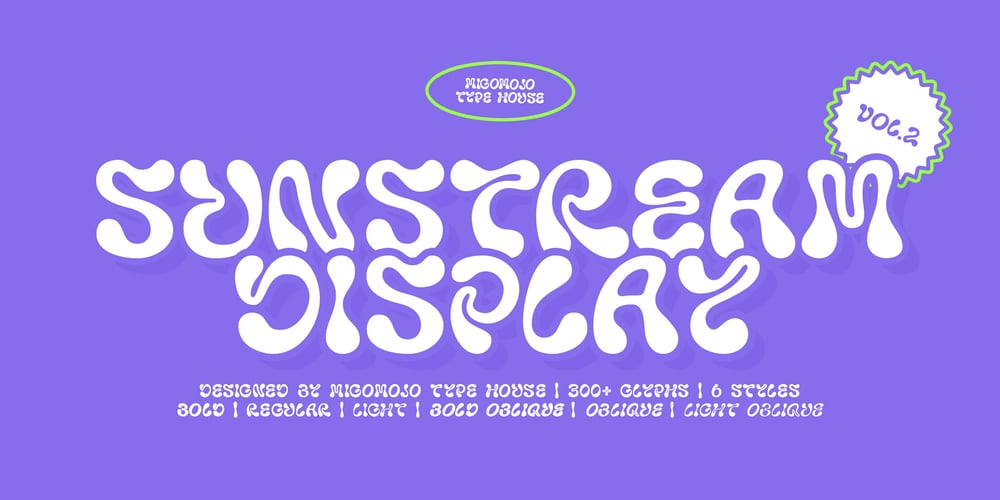
Sunstream
Sunstream font
Sunstream Font Family was designed by Komara Sani and published by Migomojo Type House. Sunstream contains 6 styles and family package options. Sunstream is a unique display font channeling the vibrant spirit of the Y2K era. It seamlessly blends natural curves with digital precision, transmuting and digitizing the beauty of flowing liquor into the font and embracing its own shape. Perfect for posters, branding projects, social media campaign, and designs that evoke a sense of fun, funk, and metamodernism. A Y2K-inspired retrofuturistic typeface with flowing energy. Let’s bring back the sunshine!